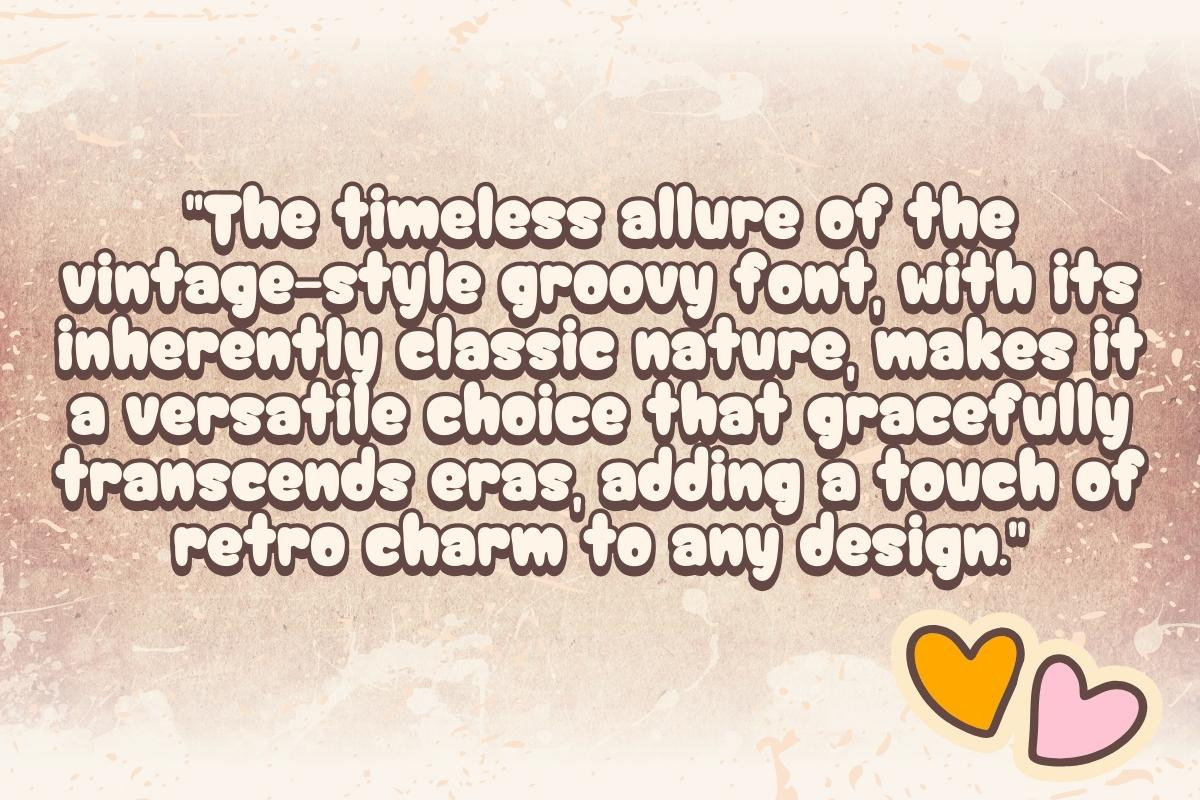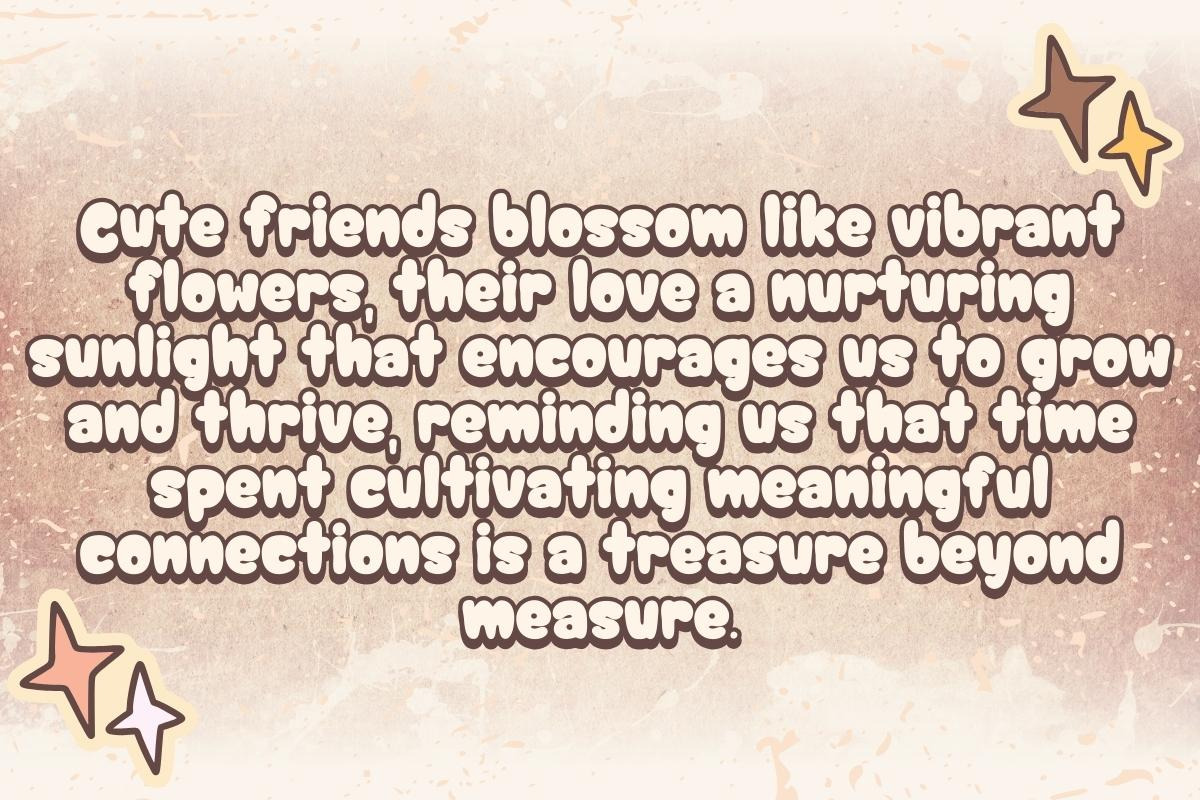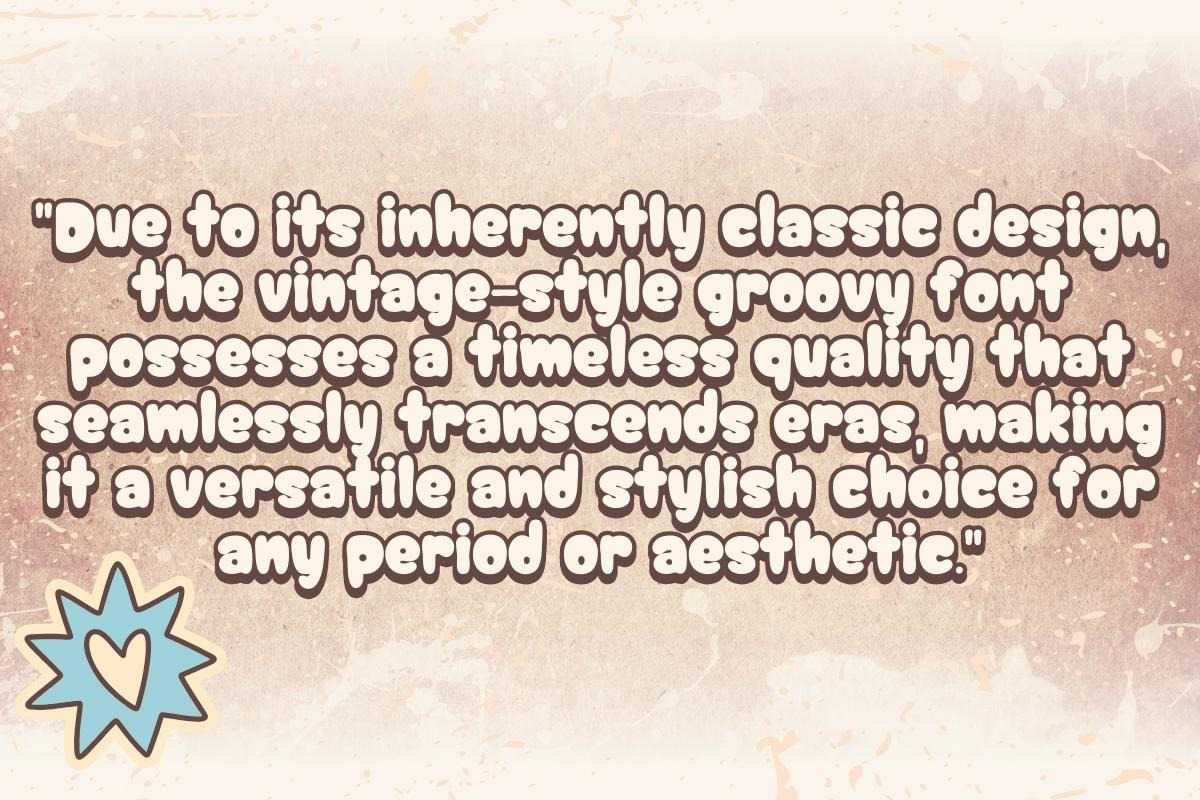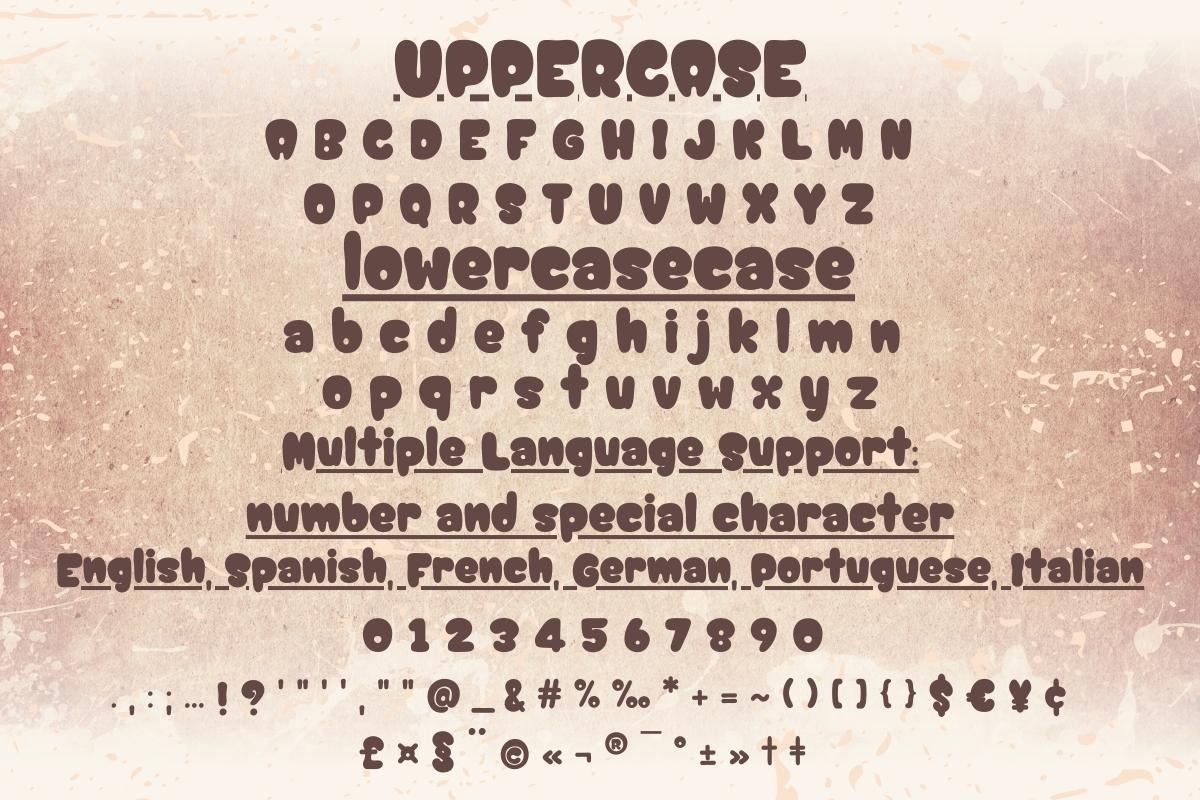
Groovy Vintage Era - Handwritten
Introducing Groovy Vintage Era: Embark on a journey through time with our Groovy Vintage Era font! This carefully crafted typeface is a tribute to the iconic styles of yesteryears, blending nostalgia with a touch of modern elegance.